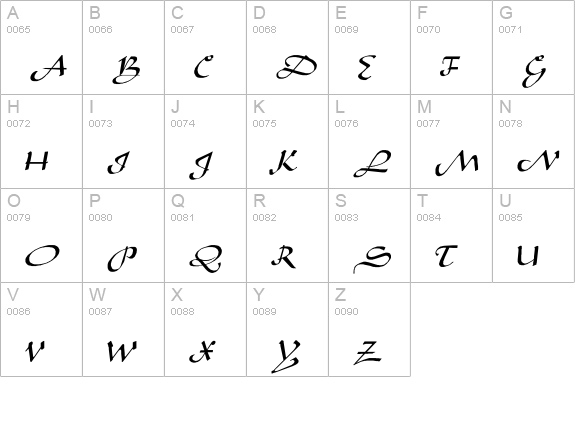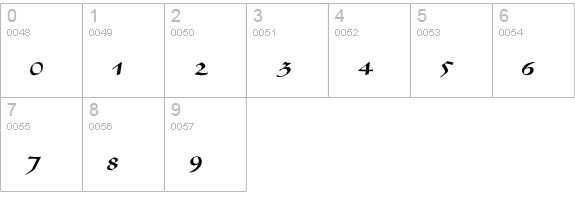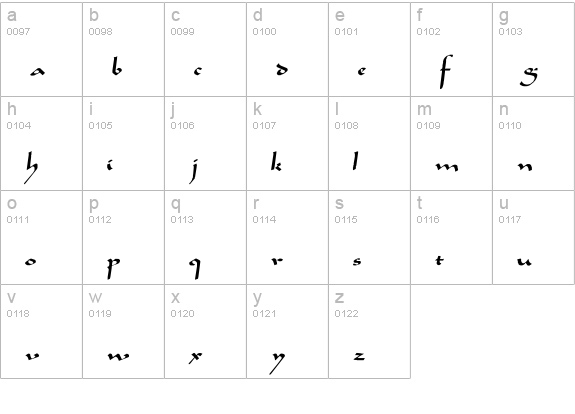
Sahara-Normal Wd Font Details
Sahara-Normal Wd is the standard, neutral variant in the Sahara typeface family \xE2\x80\x94 well suited to general body text, paragraphs, and standard typographic work.
The Sahara-Normal Wd font is a captivating and versatile typeface that exudes a harmonious blend of elegance and modernity. This font effortlessly captures attention with its unique letterforms that are gracefully balanced and subtly bold. Crafted with meticulous attention to detail, Sahara-Normal Wd offers a captivating visual experience that is sure to leave a lasting impression. The smooth curves and crisp lines of this font give it a timeless appeal, making it perfect for a wide range of design projects. Whether you're designing a logo, creating stunning headlines, or crafting eye-catching invitations, Sahara-Normal Wd is the ideal choice to add a touch of sophistication to your work. Its versatility allows it to seamlessly adapt to various design styles, making it a valuable asset in any typographic arsenal. One of the standout features of Sahara-Normal Wd is its accessibility. This font is freely available to download at FontsMarket.com, making it easily accessible to designers and enthusiasts alike. With just a few clicks, you can enhance your design projects with the allure and charm of this remarkable typeface. With Sahara-Normal Wd, you can effortlessly transform your creative visions into reality. Its timeless appeal, combined with its accessibility, makes it a must-have font for any designer looking to elevate their work to new heights. Experience the power of Sahara-Normal Wd and unlock a world of possibilities for your design projects.